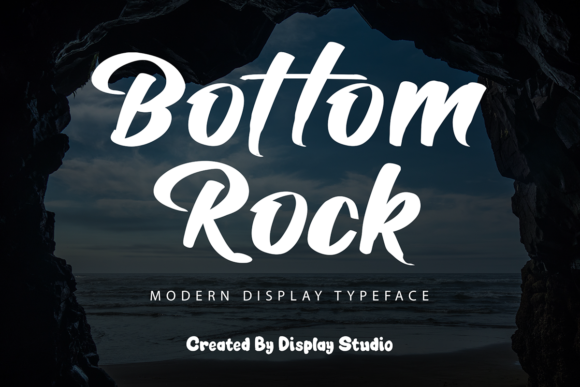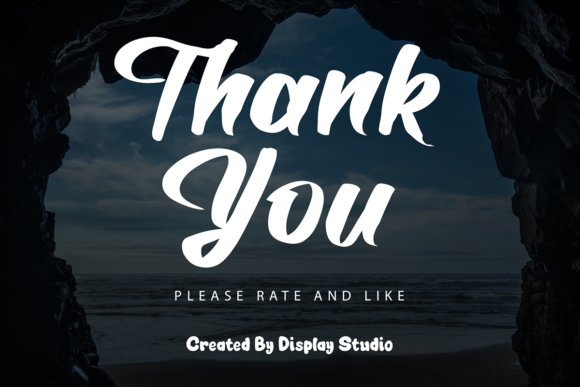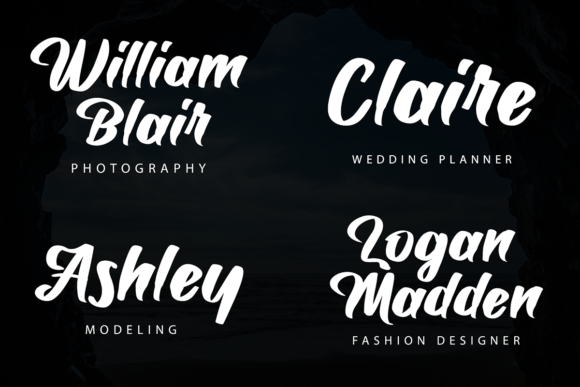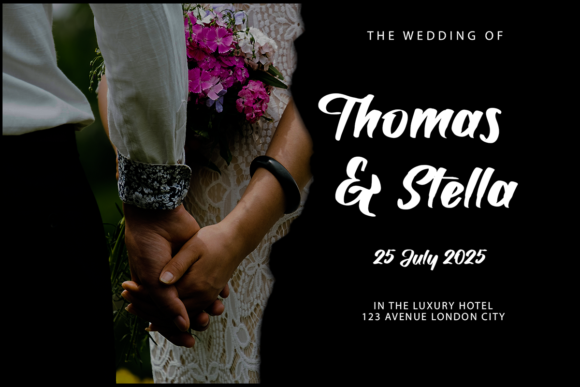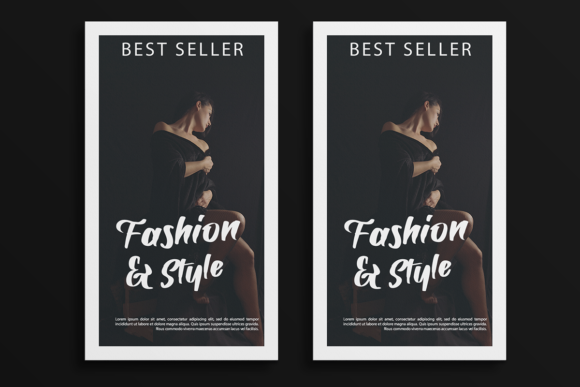
About Bottom Rock Font
Bottom Rock is a bold and beautiful handwritten font. This typeset is perfect for brand logos, invitations, greeting cards, or even any kind of project. With multilingual features and style variations, this typeface would further enhance the aesthetical aspect of your work.